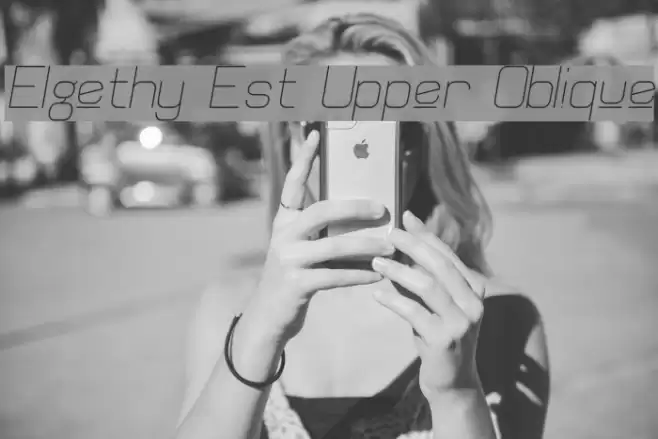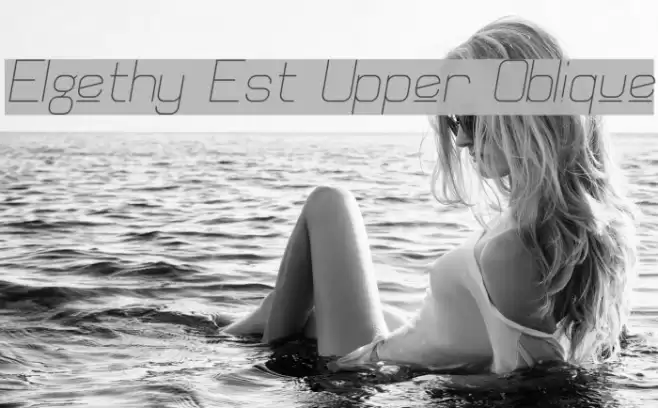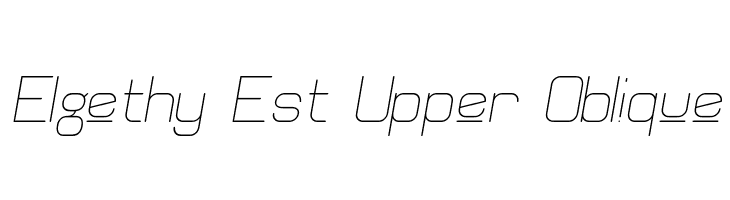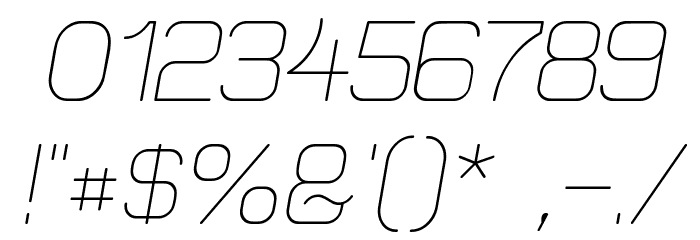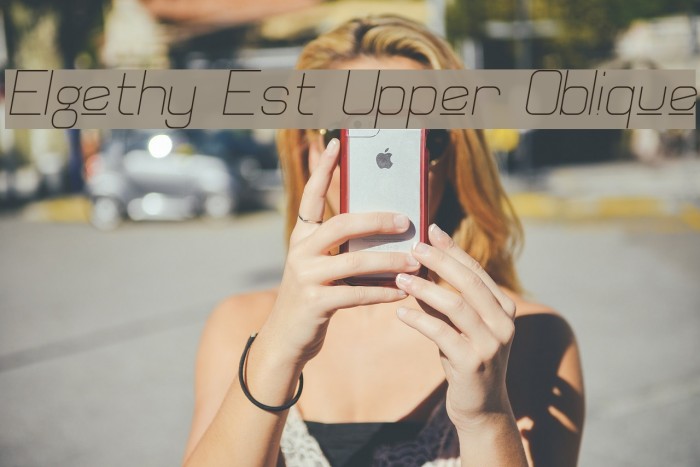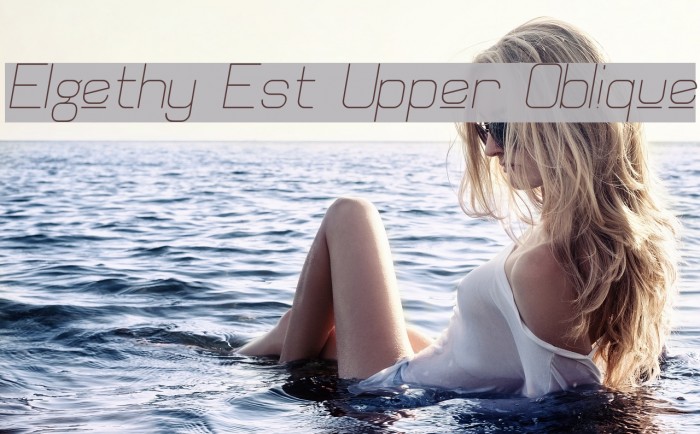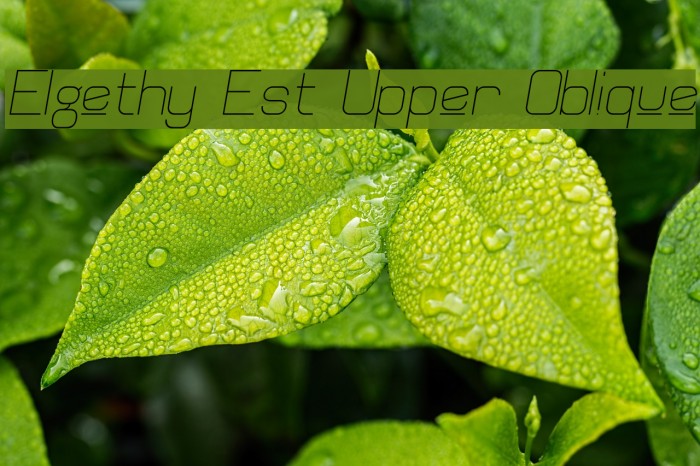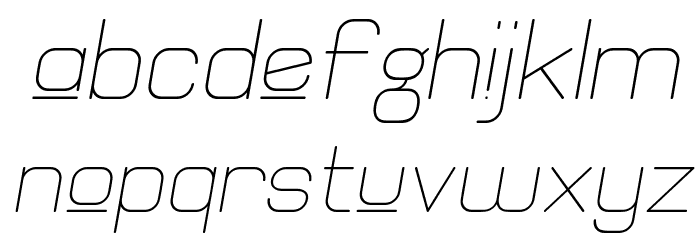
Elgethy Est Upper Oblique Font
Elgethy Est Upper Oblique Description
This font features a sleek, modern design with an oblique orientation, giving it a dynamic and forward-leaning appearance. The characters are constructed with thin, uniform lines that create a sense of elegance and sophistication. The uppercase and lowercase letters maintain a consistent style, with rounded edges and a geometric structure. The numerals are clear and legible, matching the overall aesthetic of the alphabet. Special characters are included, maintaining the same thin line weight and oblique style. This font's minimalistic design makes it versatile for various applications, offering a contemporary look that is both stylish and functional.
A modern, oblique font with thin lines and a geometric style from Uncategorized fonts.
- Proposed Projects: Ideal for tech branding, modern logos, futuristic designs, and sleek editorial layouts.
- Weight: Light
- Use Case: Headlines, Logos, Editorial Design